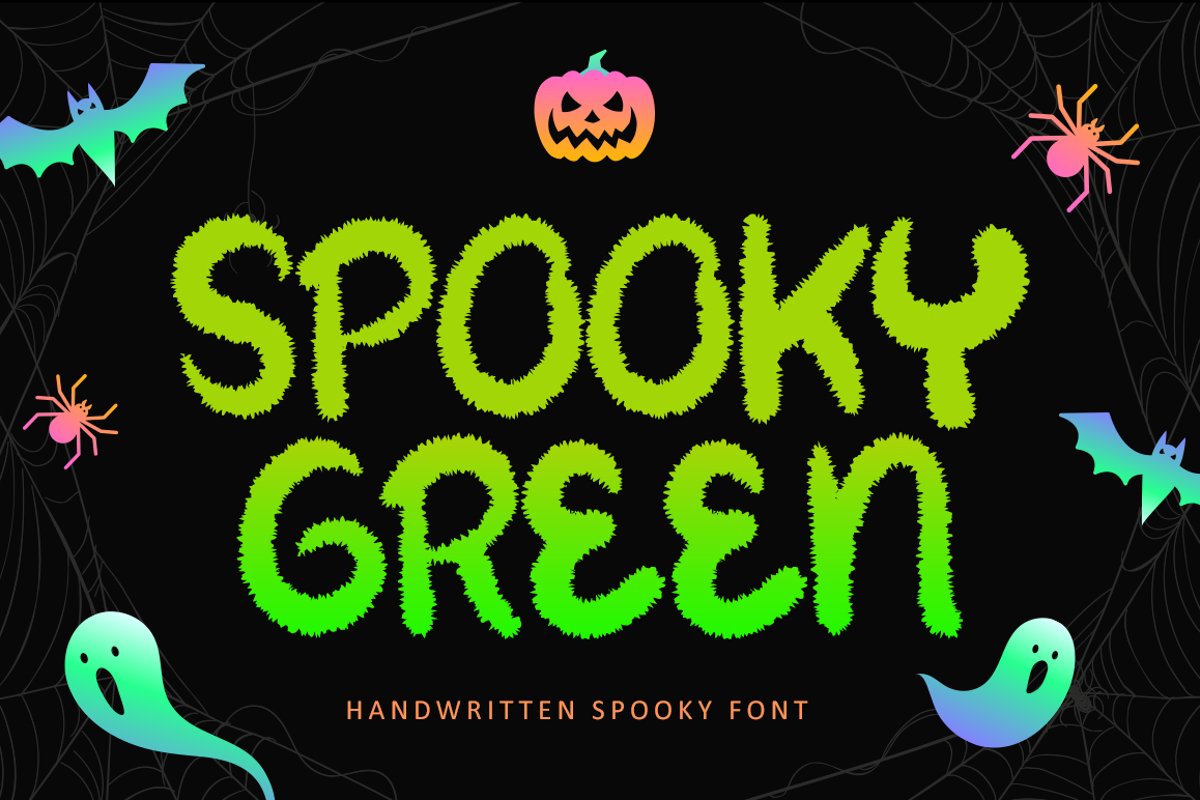
Happy to share our new font "Spooky Green" is a unique display font. A little bit quirky with handwritten style, this font looks incredibly adept on a wide variety of contexts!
Will be perfect fit for all of your spooky feel design for Halloween Seasons, such as logos, branding, social media, and crafty DIY projects.
- Uppercase and lowercase
- Numbers
- Symbols
- Multilingual Accent